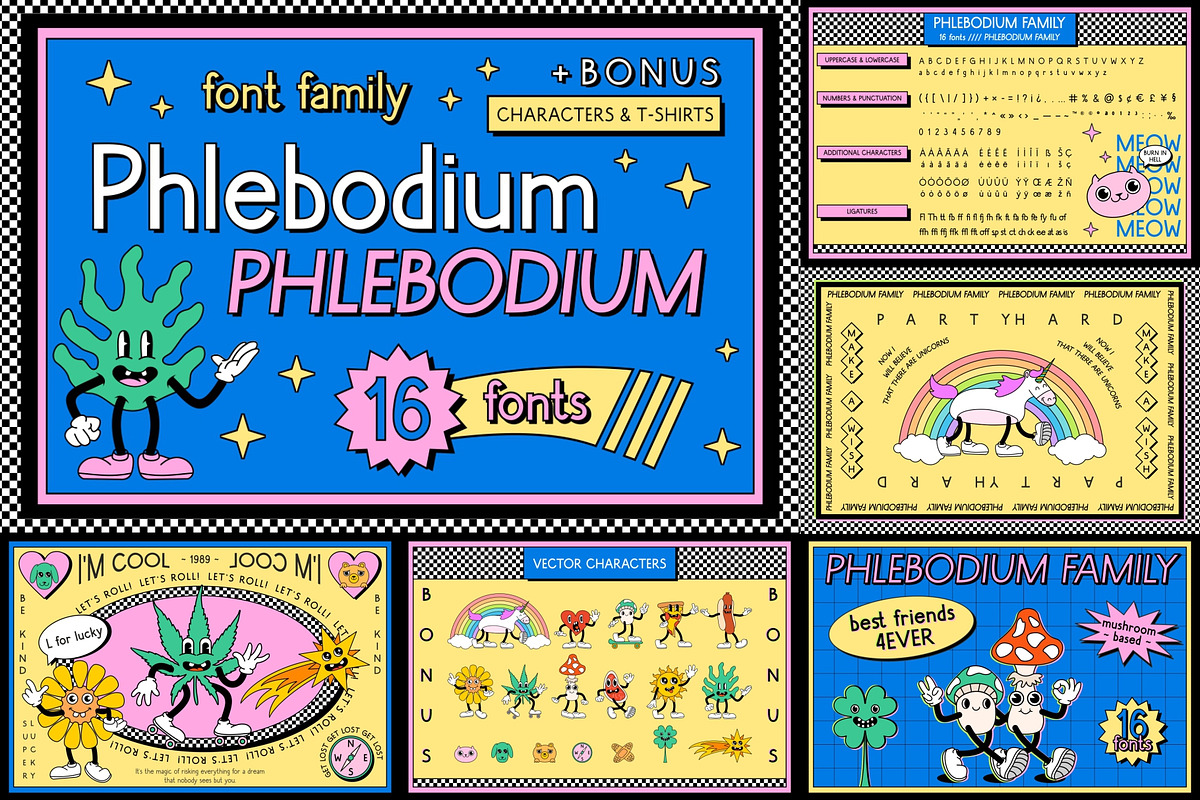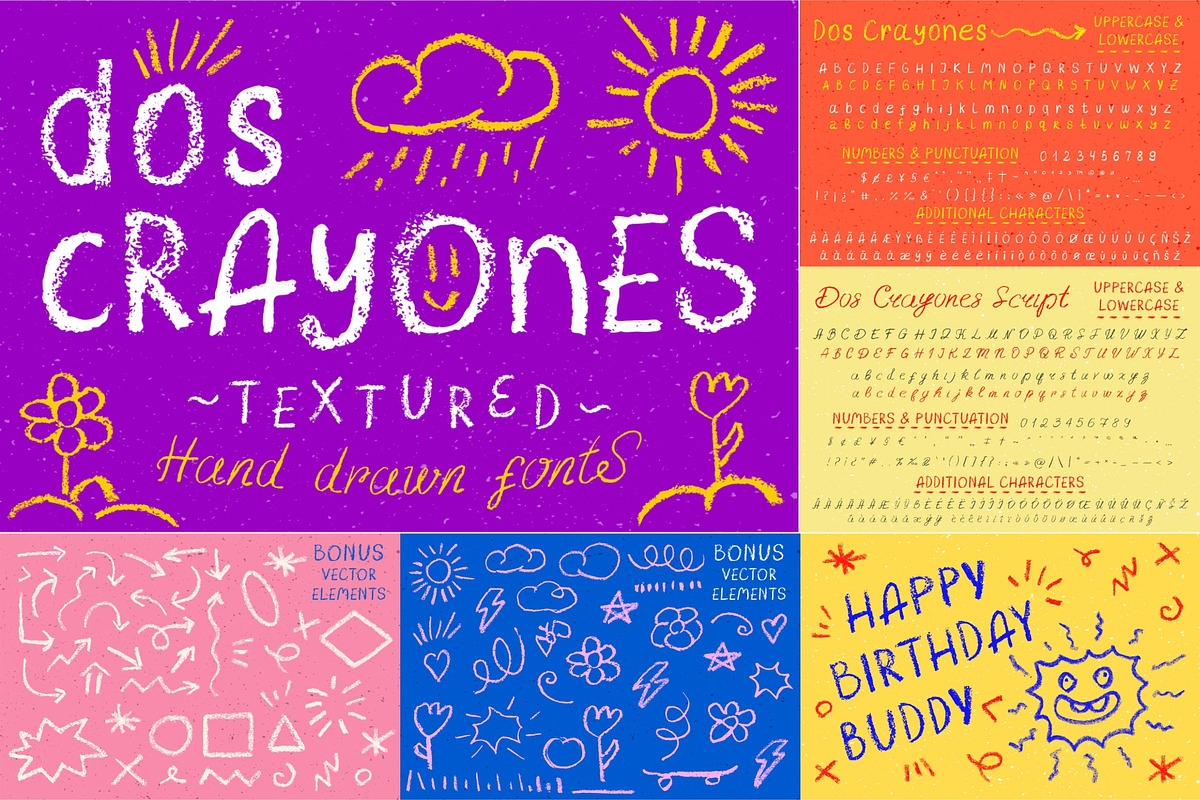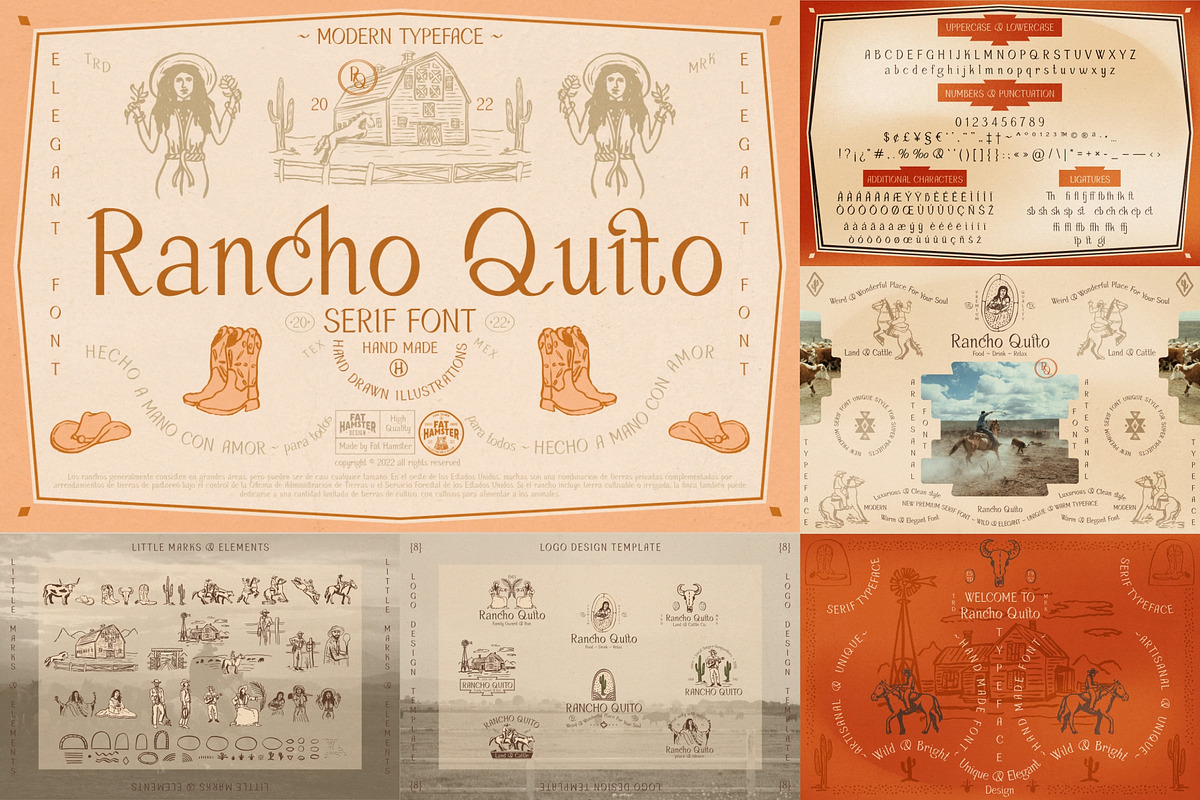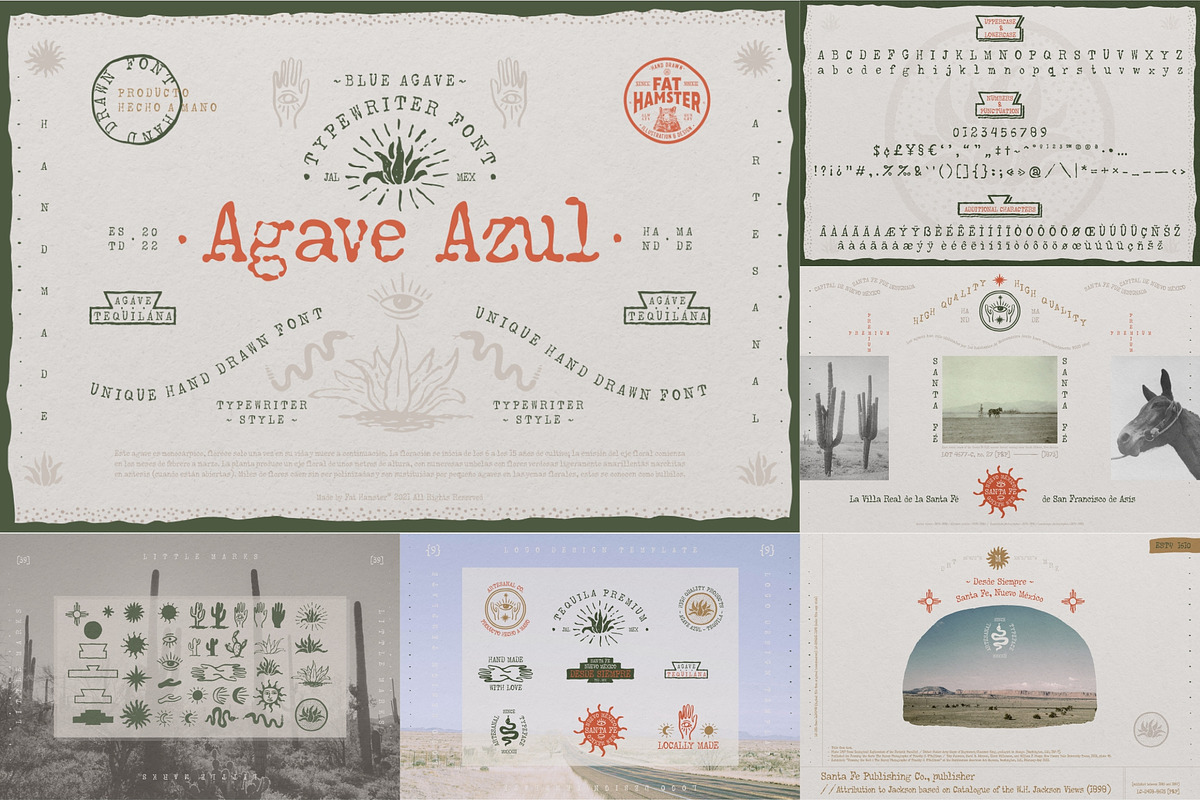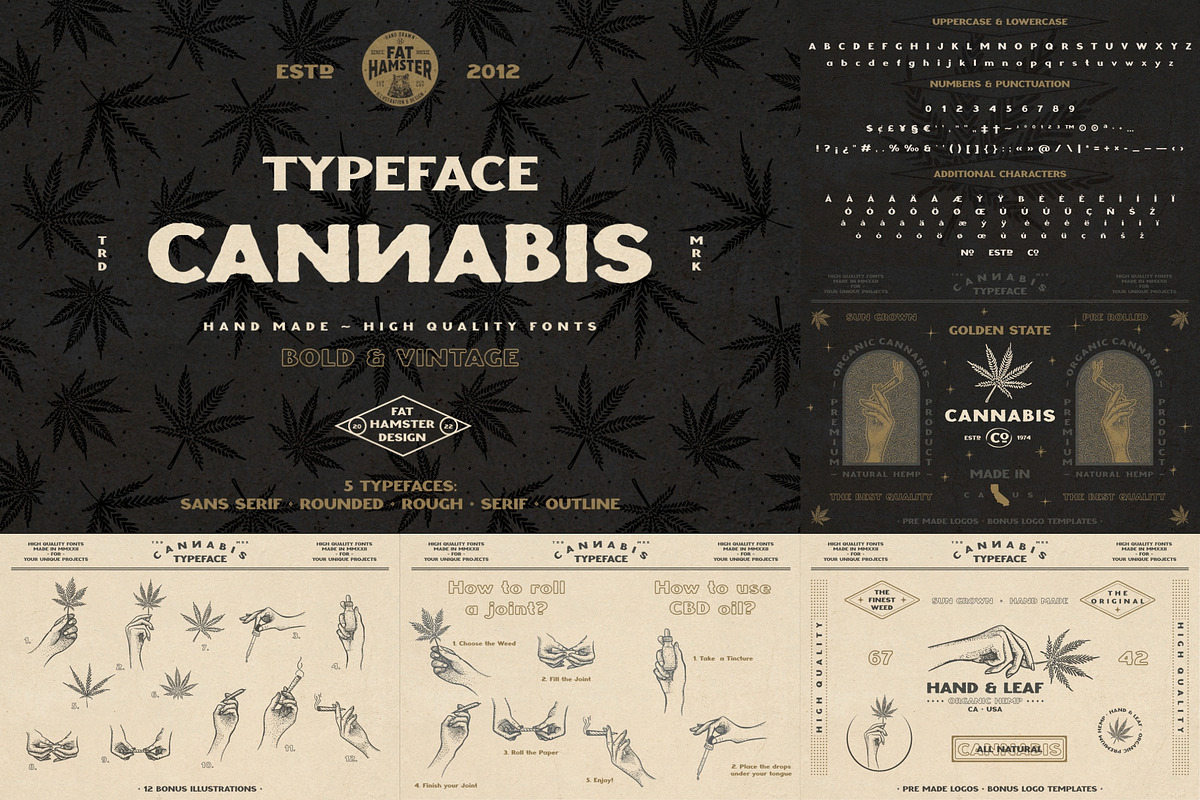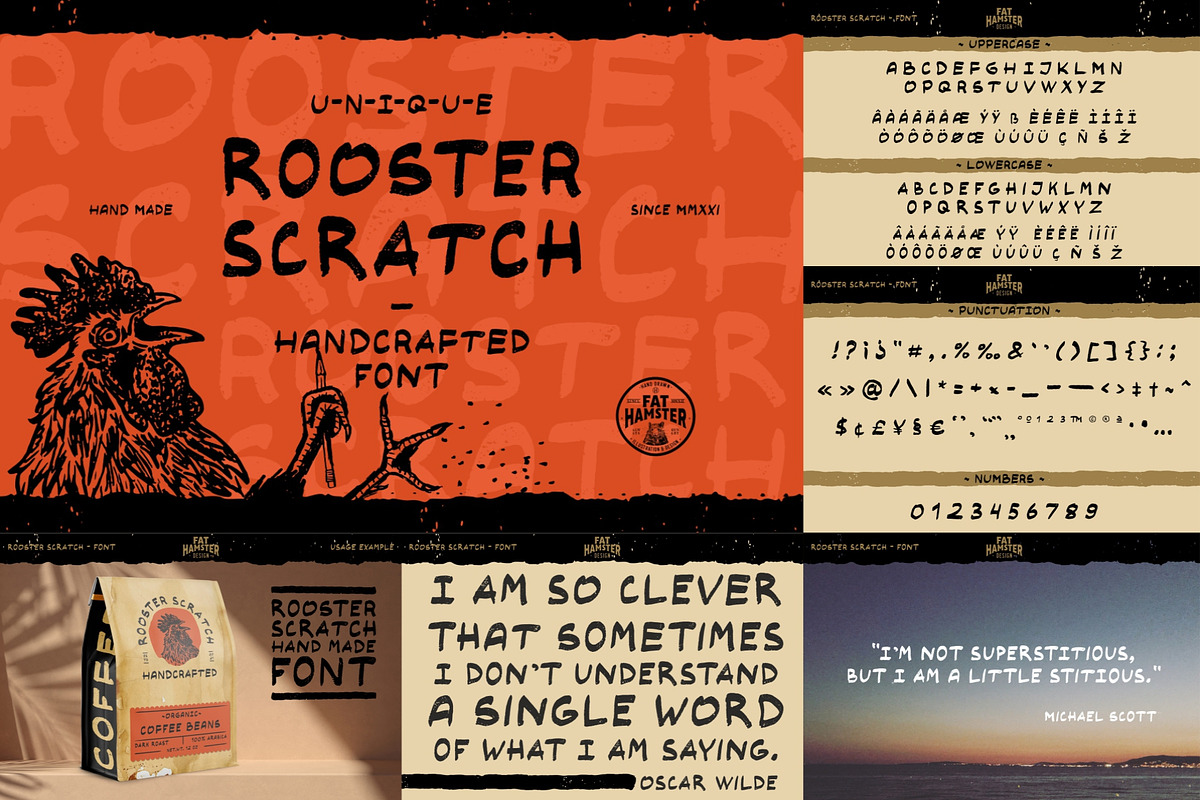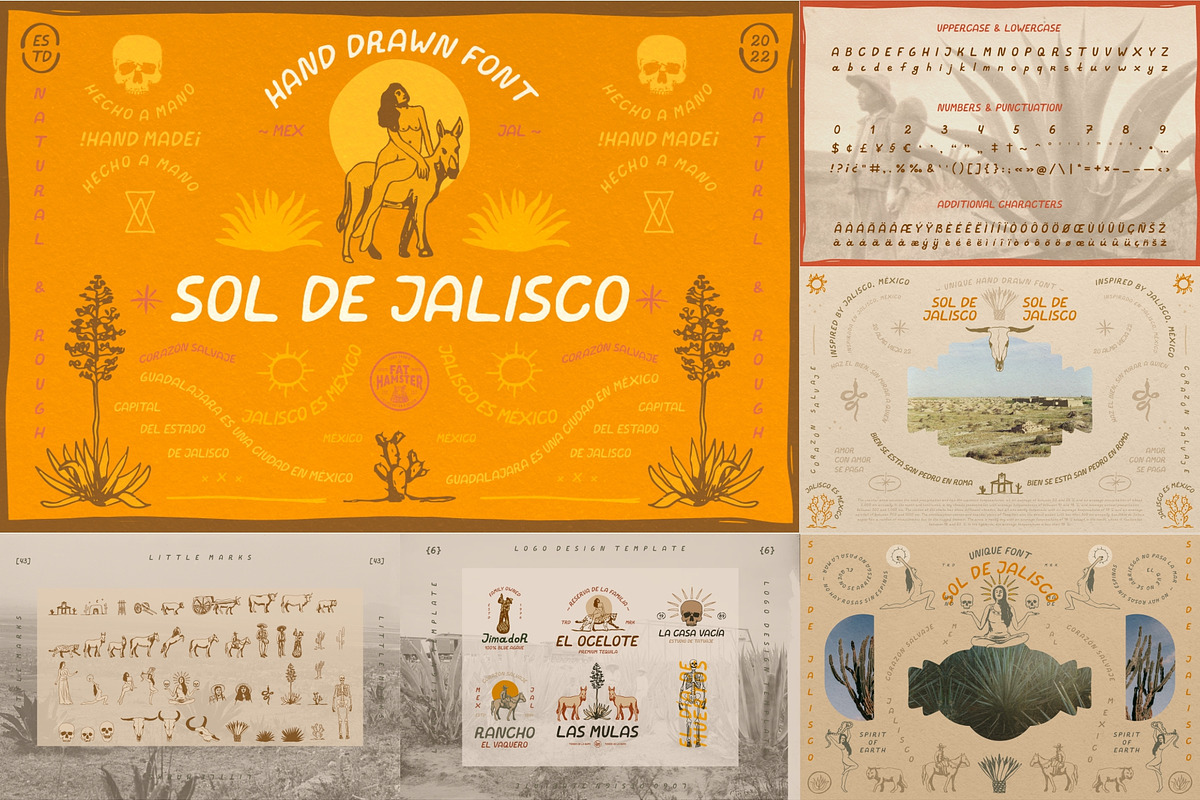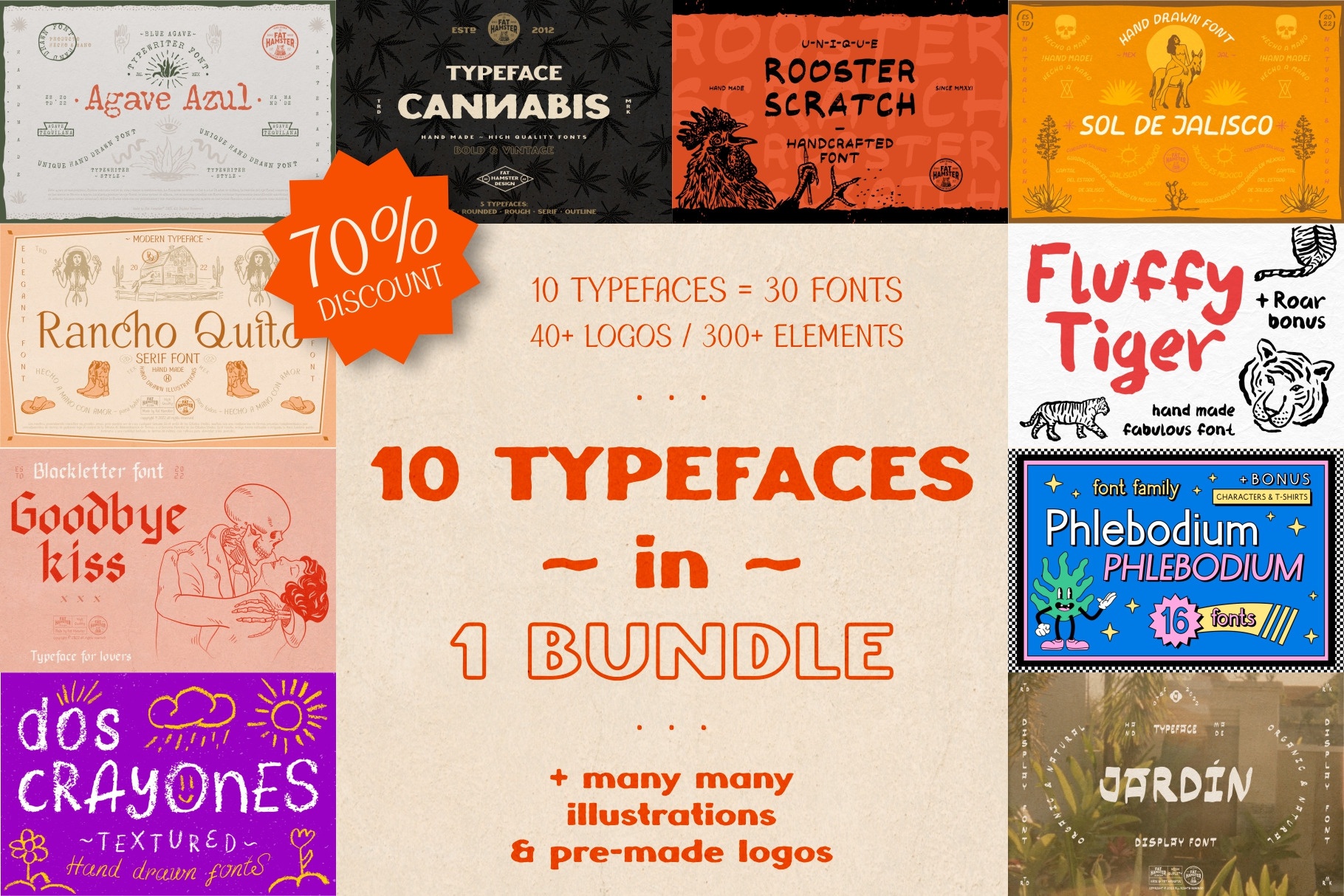
Font Bundle SALE 300+ illustrations
This font bundle includes 10 typeface packages (30 fonts). You also get BONUS over 300 graphic elements and over 40 logo templates inside this bundle, that give you endless design possibilities. These fonts work perfectly for logo and branding design, label and packaging design, headlines and quotes, t-shirt and textile design. This awesome font bundle will save you 70% off the regular price (142$)
FONTS INCLUDED: